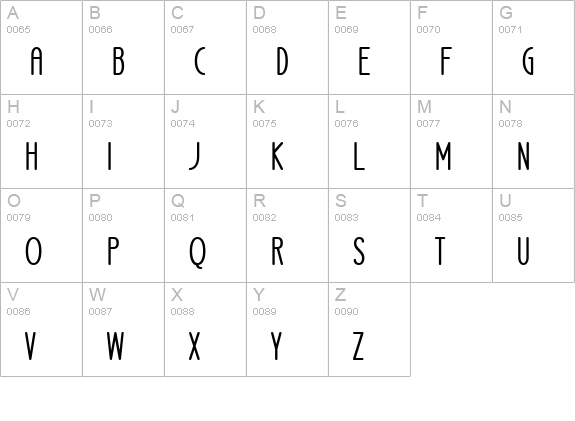
LA Headlights BTN Cond Bold Font Details
LA Headlights BTN Cond Bold is a strong, high-contrast, condensed-width variant in the LA typeface family \xE2\x80\x94 well suited to headlines, attention-grabbing titles, and strong calls-to-action.
Introducing LA Headlights BTN Cond Bold font, a captivating and dynamic typeface that will illuminate your designs with its bold and powerful presence. This font exudes a sense of energy and modernity, making it the perfect choice for headlines, posters, and any design project that demands attention. LA Headlights BTN Cond Bold font features a condensed style, allowing for maximum impact in limited spaces. Its strong and clean lines create a striking visual impact, while its bold weight ensures legibility and readability even at smaller sizes. But what sets LA Headlights BTN Cond Bold font apart from the rest is its availability for free! That's right, this incredible font is freely available to download at FontsMarket.com. With just a few clicks, you can add this stunning typeface to your collection and start using it in your designs immediately. Whether you're designing a cutting-edge website, a trendy magazine layout, or a captivating advertising campaign, LA Headlights BTN Cond Bold font will bring your ideas to life with its bold and modern aesthetic. Its versatility makes it suitable for a wide range of design projects, from fashion and lifestyle to technology and entertainment. So why wait? Don't miss out on this amazing opportunity to enhance your designs with LA Headlights BTN Cond Bold font. Download it for free at FontsMarket.com and let your creativity shine!